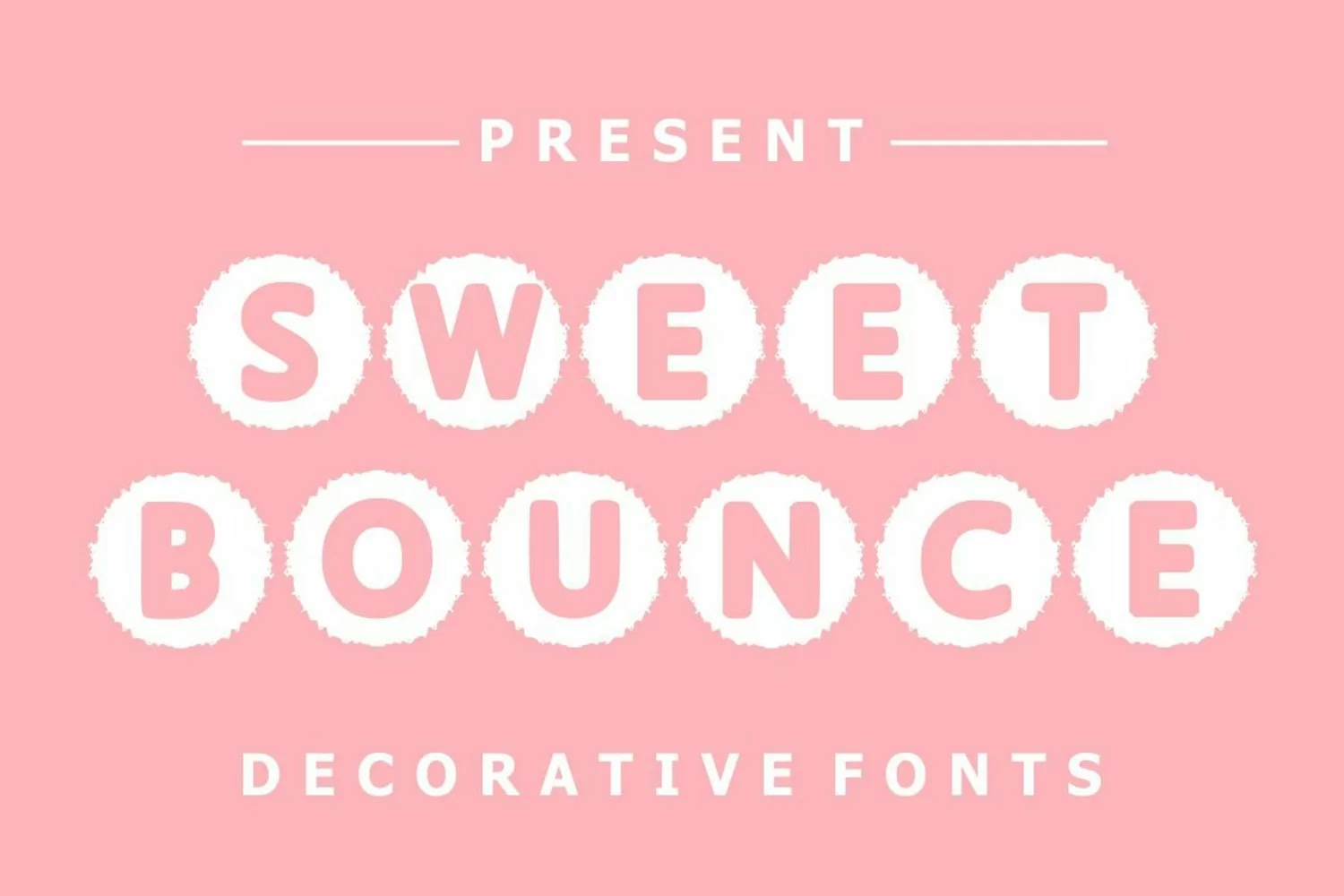
Sweet Bounce
Sweet Bounce is a cool and fun decorative font. Add it to each of your promotion, price tag, party invitation, gathering or pretty much any design that requires a touch of youth and joy.
Sweet Bounce